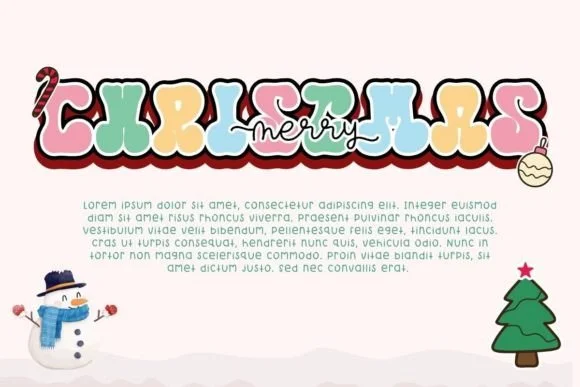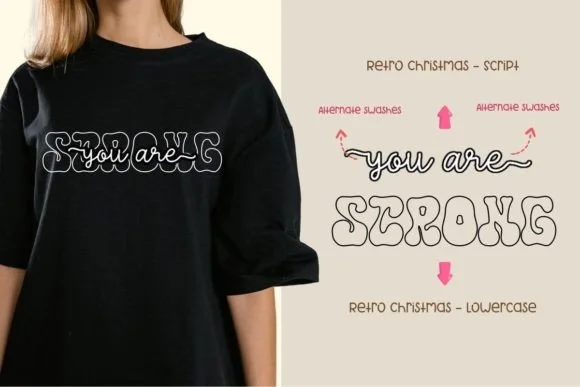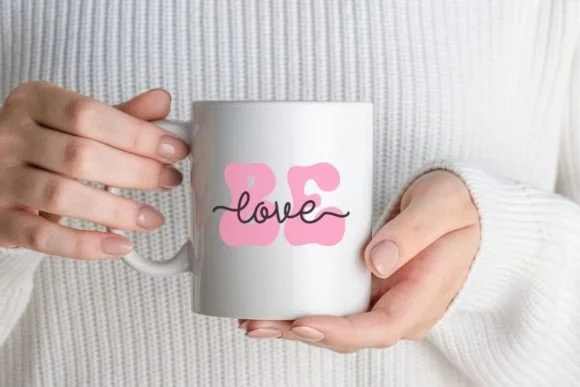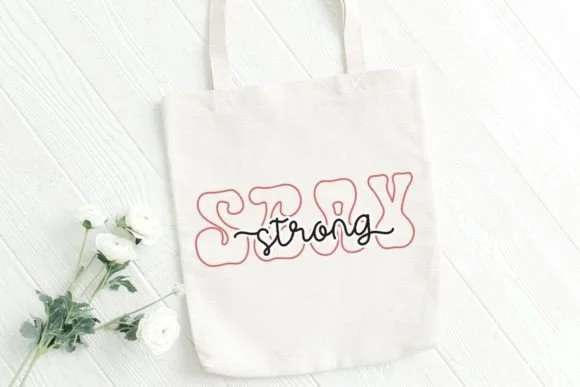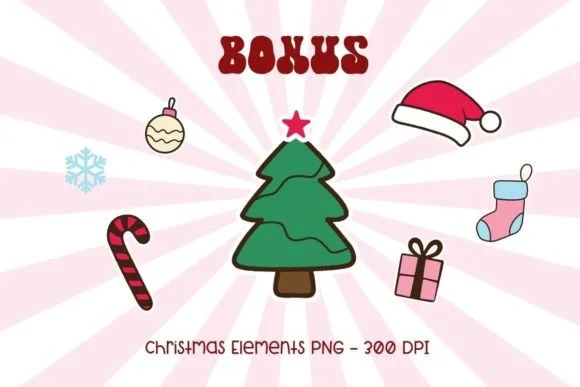
Retro Christmas Font
This nostalgic font is perfect for vintage Christmas advertisements, classic holiday postcards, retro Christmas party invitations, mid-century seasonal decorations, antique Christmas ornaments, old-fashioned holiday packaging, vintage Christmas merchandise, classic holiday posters, nostalgic seasonal branding, and timeless Christmas marketing materials.
Retro Christmas Font is exciting because it transports viewers back to the golden age of Christmas celebrations, capturing the distinctive charm and timeless elegance of mid-20th century holiday design through its authentically vintage letterforms. The font features classic proportions and traditional styling elements that reflect the sophisticated aesthetic of bygone Christmas eras, incorporating subtle design details that evoke memories of vintage Christmas cards, classic holiday advertisements, and the elegant simplicity of traditional seasonal celebrations. Each character showcases the refined craftsmanship and attention to detail that characterized vintage typography, while maintaining the warm nostalgia that makes retro Christmas imagery so enduringly popular. The design perfectly balances historical authenticity with contemporary usability, creating typography that feels both genuinely vintage and timelessly appealing.
The Retro Christmas Font family includes vintage-inspired variations: Regular, Bold, Light, Classic, and Heritage versions. The collection features special nostalgic elements including vintage ornament accents, classic holly details, traditional star flourishes, and period-appropriate decorative elements. Additional components include retro borders, classic frames, vintage decorations, and timeless ornamental designs that enhance the font's nostalgic Christmas appeal and create cohesive vintage holiday aesthetics.
Collectors and vintage enthusiasts will find Retro Christmas Font to be an invaluable resource for creating authentic period Christmas communications that celebrate the enduring appeal of classic holiday design. This meticulously crafted font transforms modern Christmas projects into nostalgic tributes that honor the rich heritage of Christmas typography while appealing to contemporary audiences who appreciate vintage aesthetics and timeless design principles.
The typeface includes comprehensive character support with authentic vintage styling that maintains excellent readability while conveying the sophisticated charm and elegant simplicity of classic Christmas design. The font's traditional proportions ensure beautiful results across both modern digital applications and vintage-inspired print projects.
Perfect for antique shops, vintage Christmas collections, retro holiday events, and nostalgic seasonal marketing, this font delivers authentic vintage impact that communicates the enduring charm, classic elegance, and timeless appeal of traditional Christmas celebrations through typography that honors the golden age of holiday design.